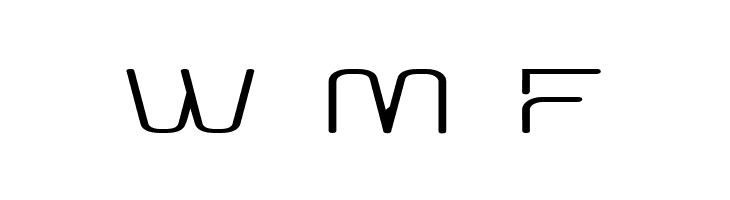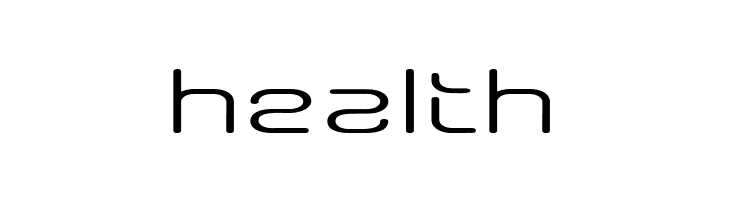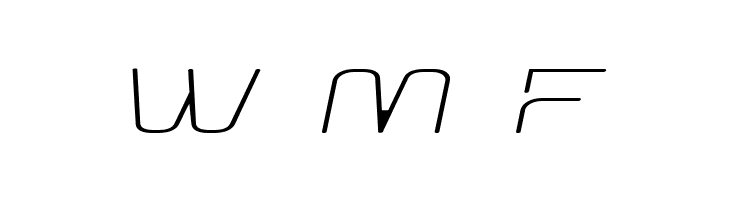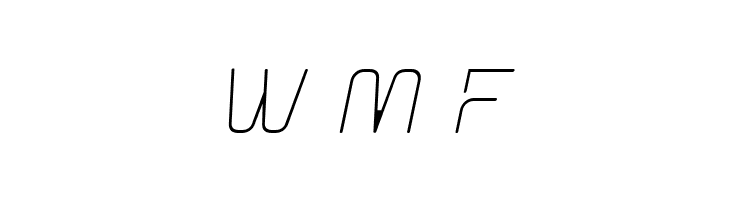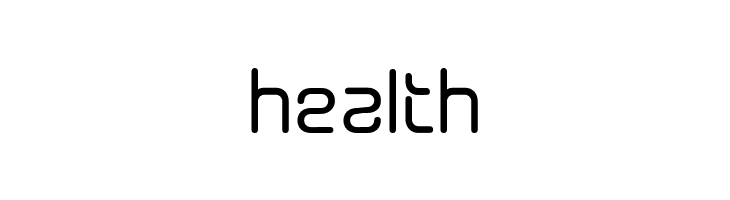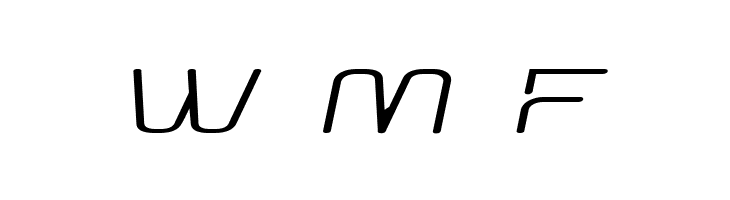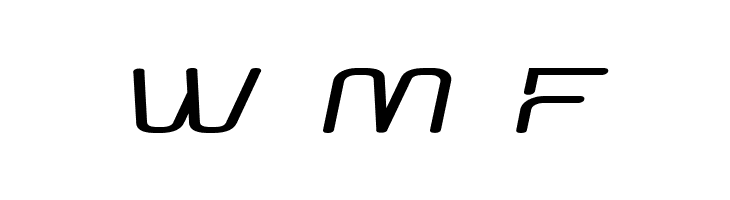
A bold, distressed font with a grungy, textured look.
A bold, italicized font with geometric, angular design and strong diagonal emphasis.
A decorative dingbat set with stars, bursts, arrows, and geometric icons.
An ornate, fantasy-inspired script with intricate, flowing lines.
A bold, offset font with a modern, double-line design.
A bold, puzzle-themed font with characters enclosed in jigsaw shapes.
A 3D outline font with a modern, geometric wireframe design.
A modern, oblique sans-serif font with clean lines and dynamic style.
A modern, geometric font with clean lines and rounded edges.
A bold, geometric font with a unique offset outline for a modern, three-dimensional look.
A hand-drawn, edgy font with jagged, angular lines and a dynamic appearance.
Futuristic italic font with gradient-striped design.
A bold, italicized, and condensed font with a futuristic look.
A bold, gothic-inspired font with sharp, angular edges and dramatic curves.
A bold, extended font with a three-dimensional shadow effect.
An artistic, hand-drawn font with angular, whimsical characters.
A modern, geometric sans-serif font with uniform strokes and clear characters.
An artistic and expressive font with bold, irregular strokes and dynamic forms.
A modern, bold font with rounded edges and geometric shapes.
An abstract, circuit-like design with interconnected circular and linear elements.
A dot matrix style font with a bold, retro digital display look.
A modern, geometric font with a unique cut-off style and consistent stroke width.
A futuristic, geometric font with sharp angles and a condensed style.
A whimsical, animated font with playful characters featuring eyes and limbs.
An ornate and decorative font with intricate curves and flourishes.